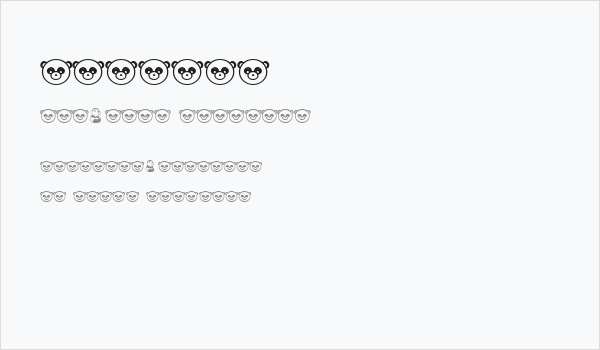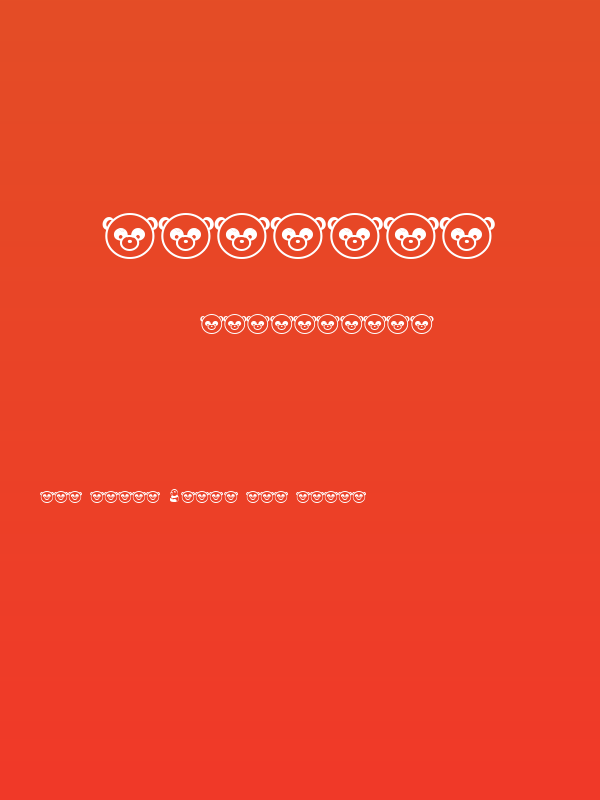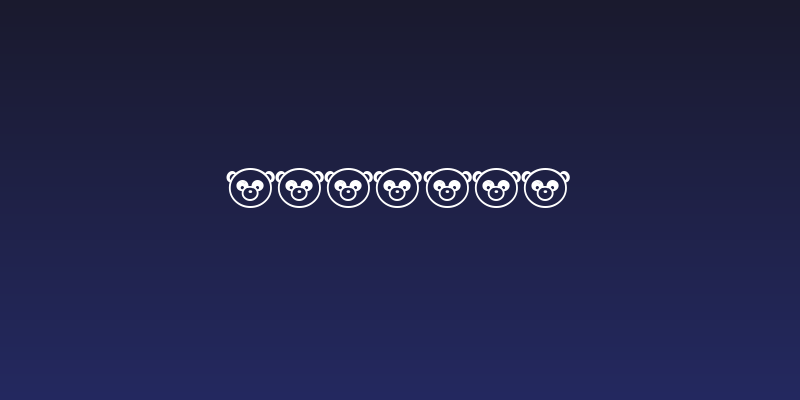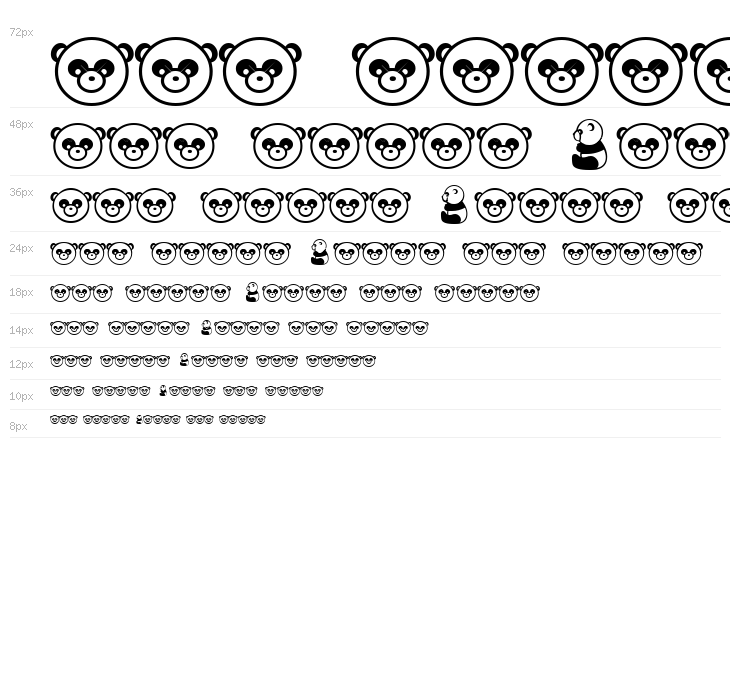
Prinjen Font
Prinjen Description
A playful, decorative font featuring repeated cartoon bear faces as glyphs, with two larger panda illustrations in the center. The design is whimsical and highly stylized, prioritizing visual motifs over traditional letterforms.
| Overall Style | Decorative, Playful |
| Use Case | Borders, Themed graphics, ChildrenΓ’β¬β’s materials |
| Proposed Projects | ChildrenΓ’β¬β’s party invitations, playful borders, educational materials, themed posters. |